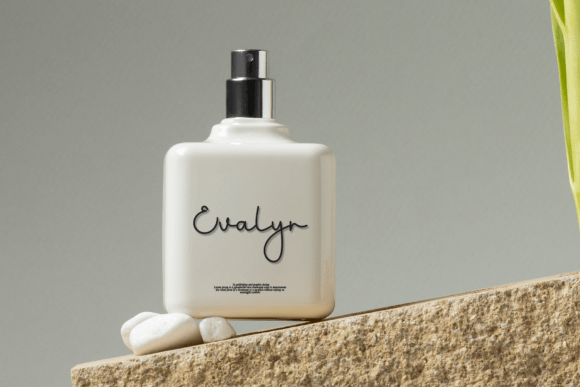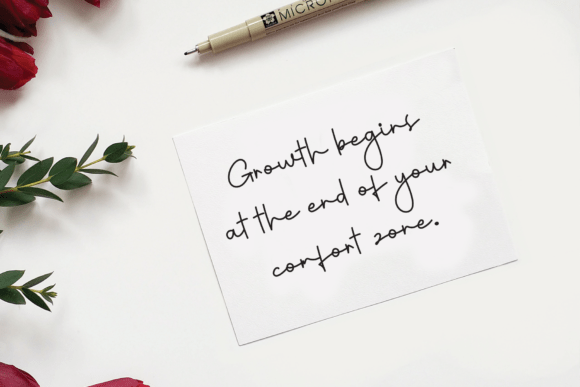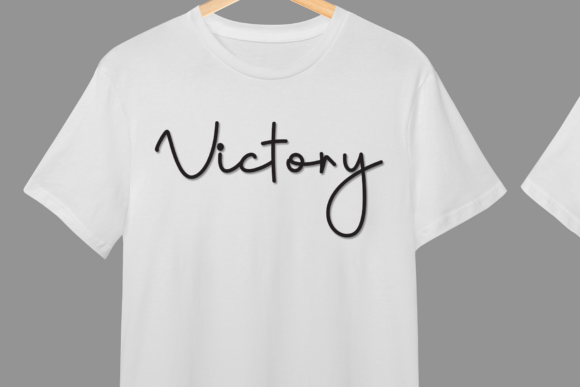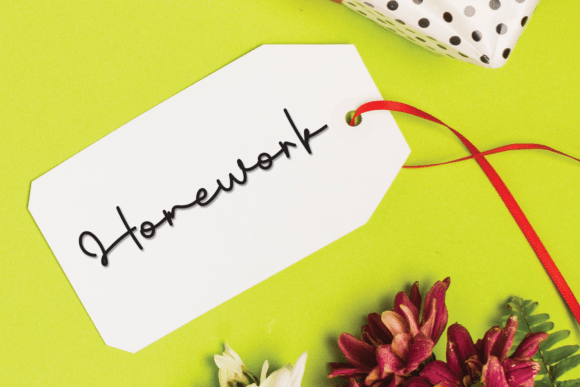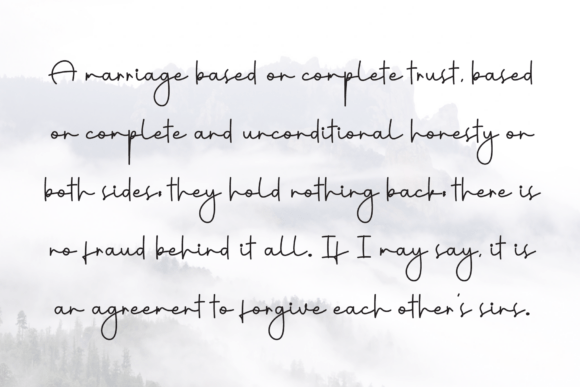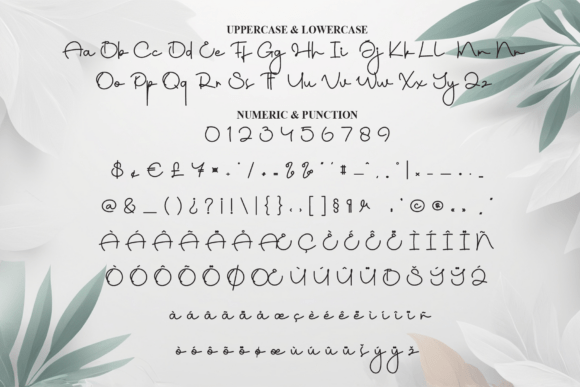
Discover the Elegance of Agatha Font: A Stylish Script Font for Creative Designs
Are you looking for a font that adds a touch of artistic flair and contemporary elegance to your designs? Look no further than Agatha Font, a stylish script font that is sure to elevate your creative projects. With its fluid brush strokes, dynamic curves, and expressive letterforms, Agatha Font captures the essence of hand-painted calligraphy with a modern twist.
What Makes Agatha Font Special?
Agatha Font is a unique and versatile font that is perfect for a variety of design applications, including logos, invitations, packaging, and social media graphics. Its natural flow and vibrant character make it an excellent choice for designers and crafters who want to add a creative and sophisticated touch to their work.
One of the standout features of Agatha Font is its fluid brush strokes, which give it a hand-painted feel that is both elegant and artistic. The dynamic curves and expressive letterforms add to the font’s stylish and modern aesthetic, making it perfect for designs that require a touch of sophistication.
Uses for Agatha Font
Agatha Font is an incredibly versatile font that can be used in a variety of design applications. Here are just a few ideas to get you started:
- Logos: Agatha Font is perfect for creating unique and memorable logos that stand out from the crowd. Its elegant and artistic feel makes it an excellent choice for businesses that want to convey a sense of sophistication and style.
- Invitations: Whether you’re planning a wedding, birthday party, or other special event, Agatha Font is a great choice for creating beautiful and elegant invitations.
- Packaging: Agatha Font can add a touch of luxury and sophistication to your product packaging, making it perfect for high-end brands and businesses.
- Social Media Graphics: Agatha Font is also great for creating eye-catching social media graphics, including Facebook posts, Instagram stories, and Twitter headers.
Benefits of Using Agatha Font
There are many benefits to using Agatha Font in your designs. Here are just a few:
- Unique and Memorable: Agatha Font is a unique and memorable font that will help your designs stand out from the crowd.
- Elegant and Sophisticated: Agatha Font has an elegant and sophisticated feel that is perfect for designs that require a touch of luxury and style.
- Versatile: Agatha Font is an incredibly versatile font that can be used in a variety of design applications.
- Easy to Read: Despite its artistic and elegant feel, Agatha Font is easy to read and understand, making it perfect for designs that require a clear and concise message.
Tips for Using Agatha Font
Here are a few tips for using Agatha Font in your designs:
- Use it Sparingly: Agatha Font is a bold and elegant font, so it’s best to use it sparingly to avoid overwhelming your design.
- Pair it with Other Fonts: Agatha Font pairs well with other fonts, so don’t be afraid to experiment with different combinations to find the perfect look for your design.
- Experiment with Colors: Agatha Font looks great in a variety of colors, so don’t be afraid to experiment with different colors to find the perfect look for your design.
Agatha Font is a stylish script font that is perfect for designers and crafters who want to add a touch of artistic flair and contemporary elegance to their designs. With its fluid brush strokes, dynamic curves, and expressive letterforms, Agatha Font captures the essence of hand-painted calligraphy with a modern twist. Whether you’re creating logos, invitations, packaging, or social media graphics, Agatha Font is an excellent choice for adding a creative and sophisticated touch to your work.